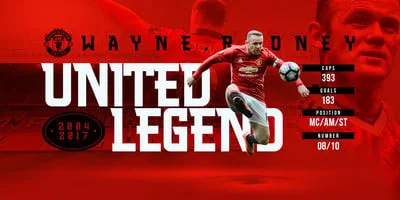
MGN Albiston Font
MGN Albiston Font is perfect for prestigious financial institutions, executive corporate branding, luxury professional services, high-end legal firm identities, sophisticated business communications, elite consulting companies, premium advisory services, and distinguished commercial applications. This authoritative typeface brings institutional gravitas, professional excellence, and executive sophistication to any project requiring typography that communicates established credibility, corporate leadership, and the refined standards of premium business environments.
What makes MGN Albiston Font exciting is its exceptional embodiment of executive authority through letterforms that seem crafted for boardroom presentations and shaped by decades of corporate excellence and institutional prestige. The font features commandingly elegant character shapes with executive proportions, authoritative spacing that creates professional presence, and sophisticated details that evoke the precision of high-level business operations and corporate leadership. Its institutional character represents the pinnacle of professional credibility and business excellence, making it perfect for organizations that want to communicate authority, trustworthiness, and the distinguished reputation required for executive-level business relationships and premium service delivery.
The MGN Albiston Font family typically includes multiple weights with authoritatively designed uppercase and lowercase letters, executive numerals, and comprehensive punctuation marks that maintain the font's corporate sophistication and institutional appeal. The design emphasizes professional authority while providing practical typography options for contemporary business and corporate communication applications that require both executive presence and functional excellence.
Whether you're creating executive brand identities or developing corporate communication materials, MGN Albiston Font offers unmatched institutional authenticity and executive appeal. This typeface excels in applications where its authoritative character can communicate corporate leadership and professional excellence. Its sophisticated aesthetic makes it particularly effective for financial firms, legal practices, and premium service providers that want to associate with institutional authority and executive credibility. The font's distinguished presence helps establish corporate trust while ensuring memorable recognition through typography that celebrates the essential standards of MGN Albiston Font executive professionalism and institutional excellence.